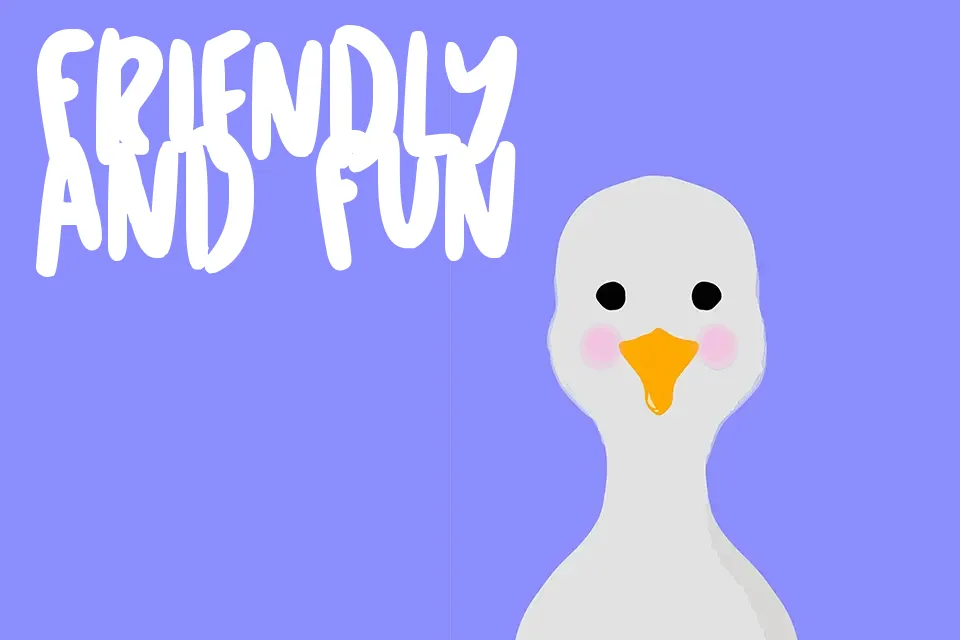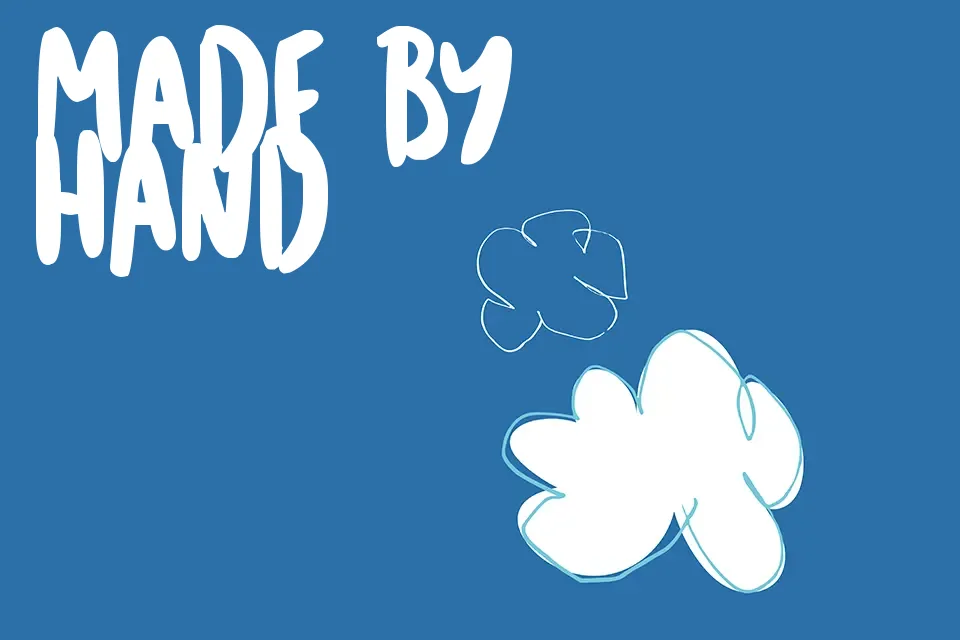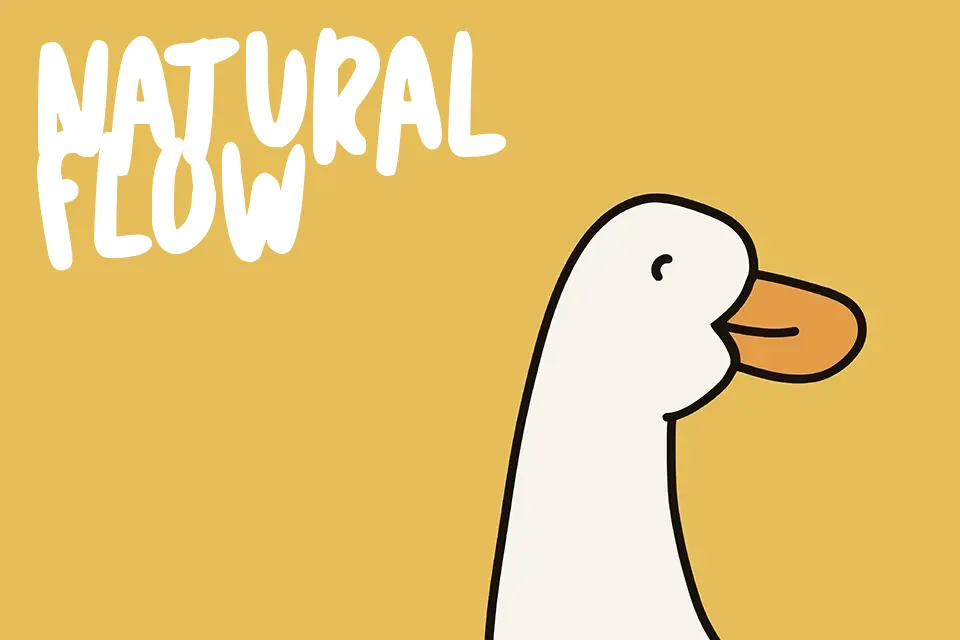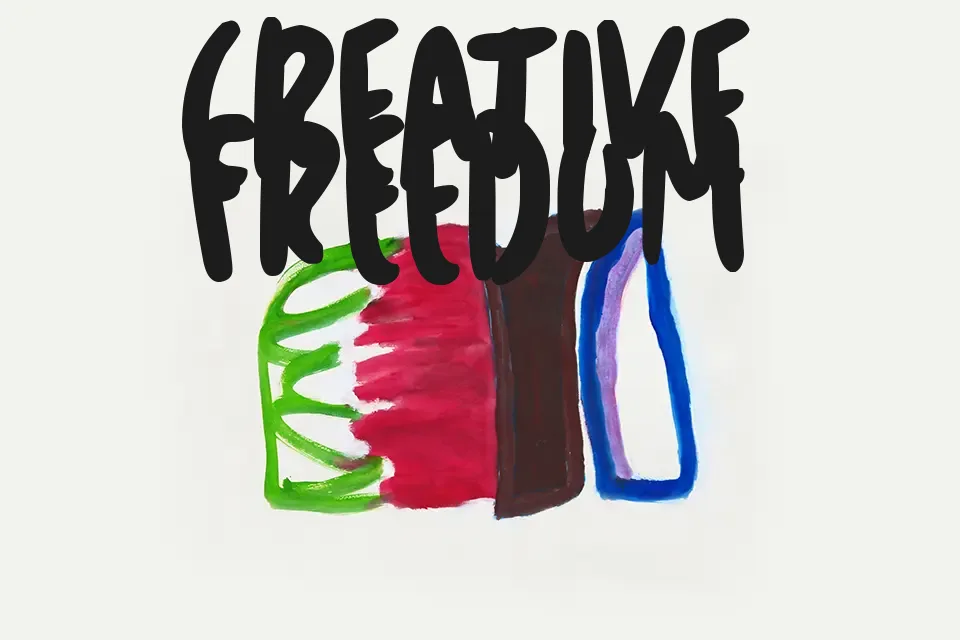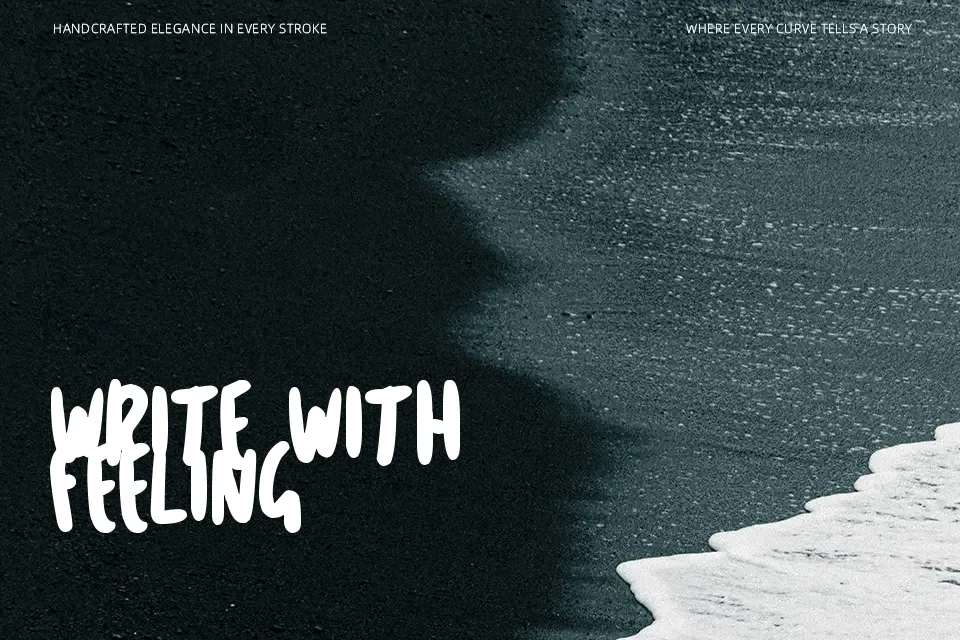
Cartoon Marker Font
Cartoon Marker Font presents a playful marker aesthetic shaped by uniform, unrefined strokes and noticeably rounded contours. The letterforms exhibit a casual rhythm with slightly loose spacing, allowing individual characters to maintain their distinct silhouettes when set at larger display scales. In practical application, the typeface brings an organic, doodle-like charm to party invitations, animated title cards, and youthful merchandise designs. However, the heavy weight and irregular handcrafted baseline cause smaller captions to blur together, making extended reading uncomfortable in dense editorial environments. As a functional display tool, the design succeeds by delivering immediate personality without sacrificing short-phrase clarity.
Best For: comic strip lettering, children’s book covers, playful party invitations, animated YouTube thumbnails
Not Ideal For: long body text, corporate annual reports, dense mobile UI labels, legal documents
Perfect for headline, kids, and packaging, with a creative and cartoon style.